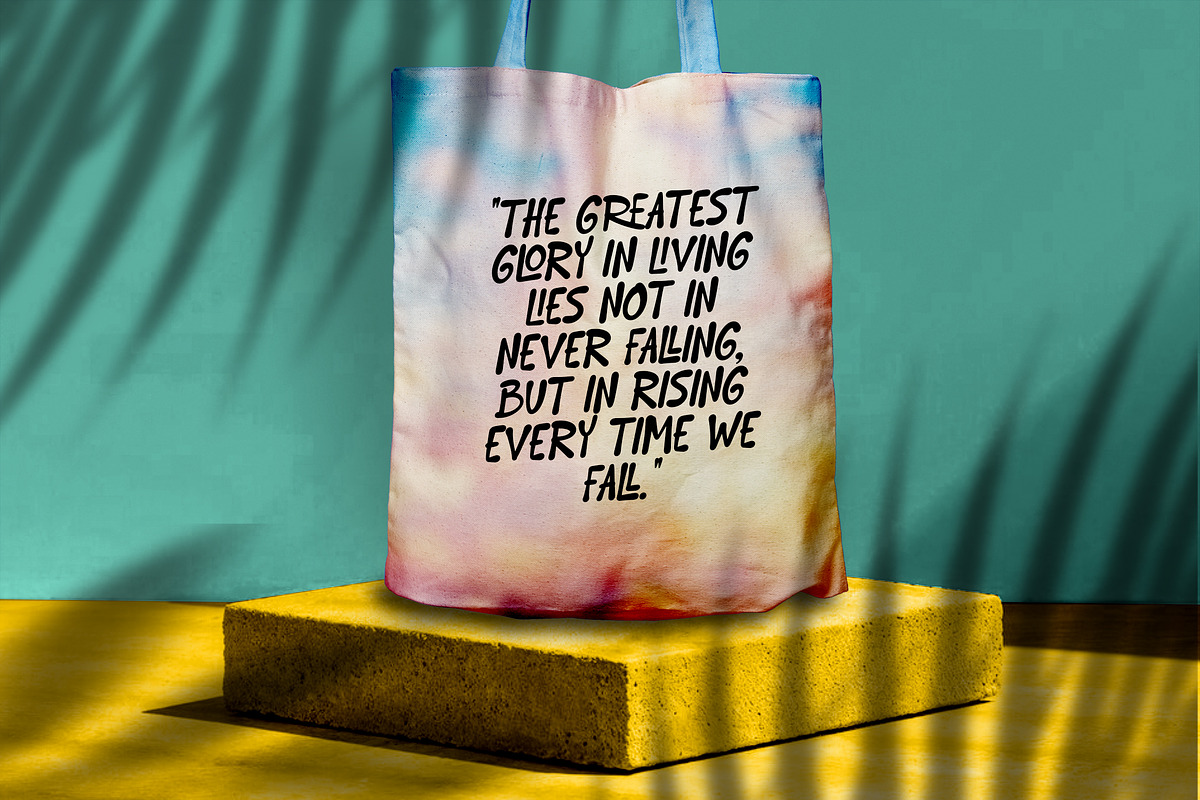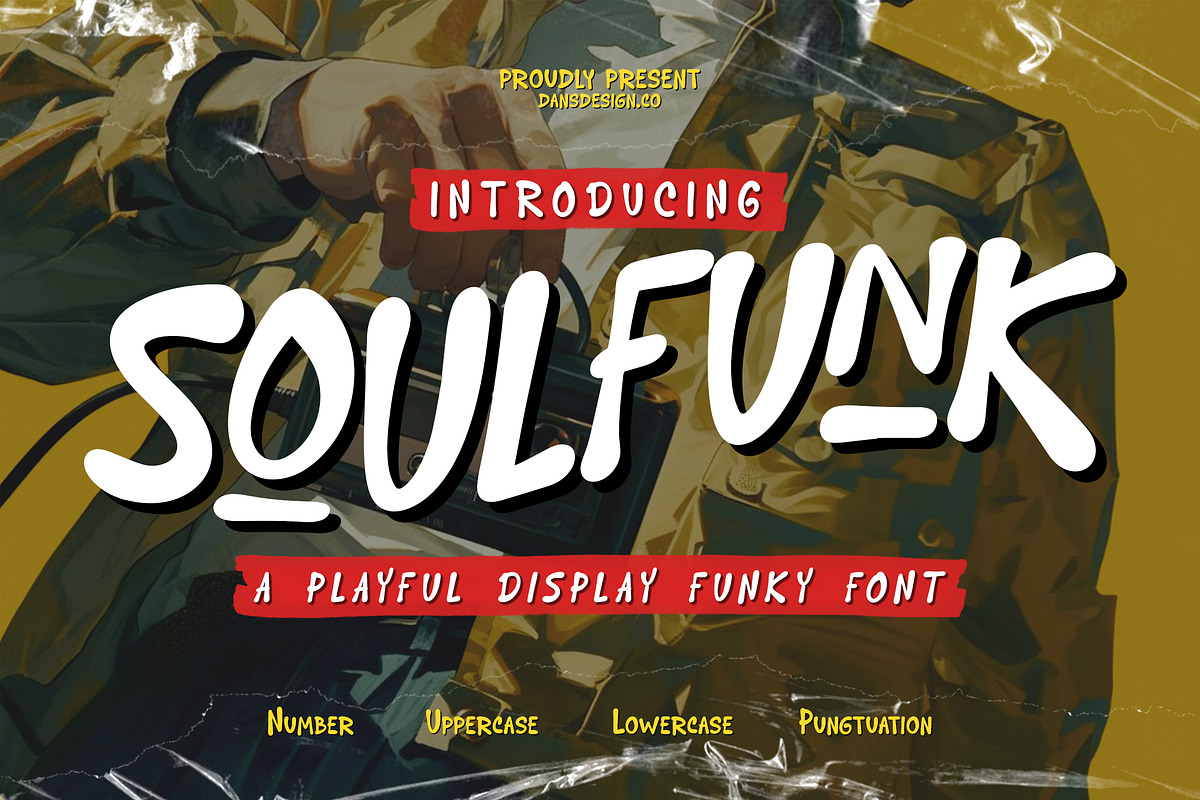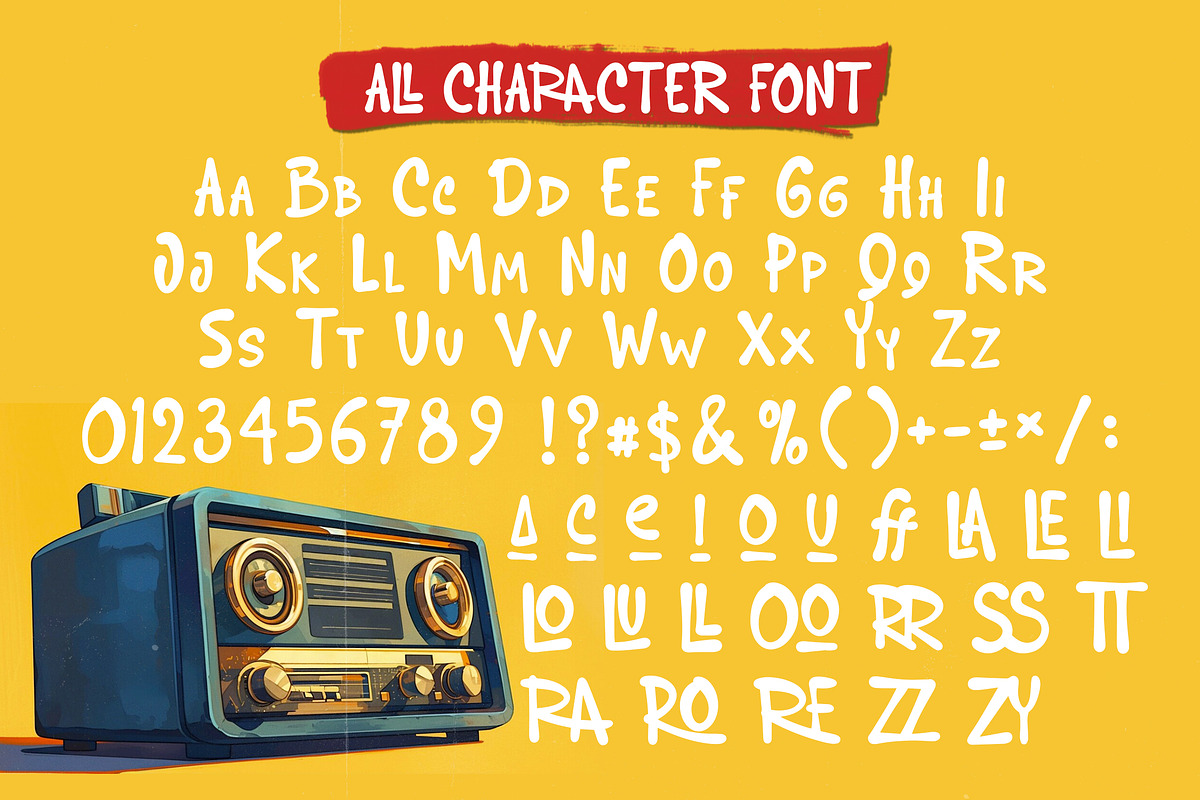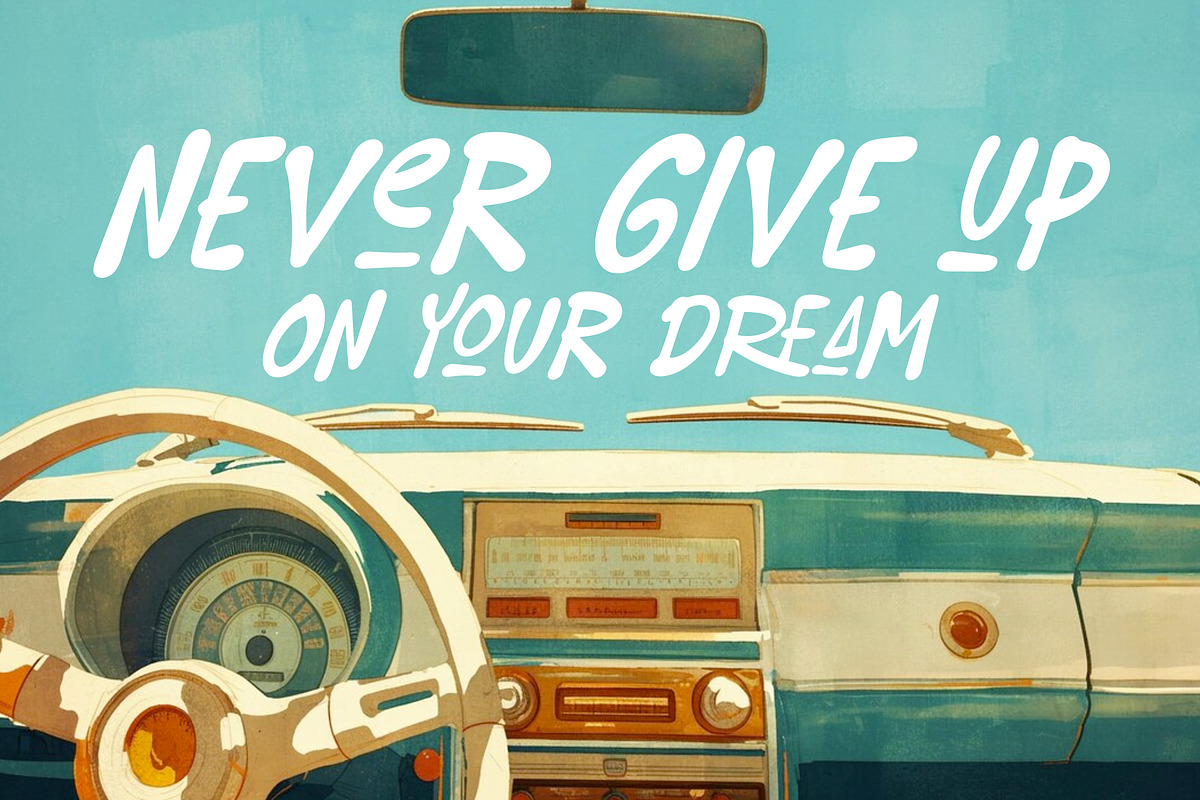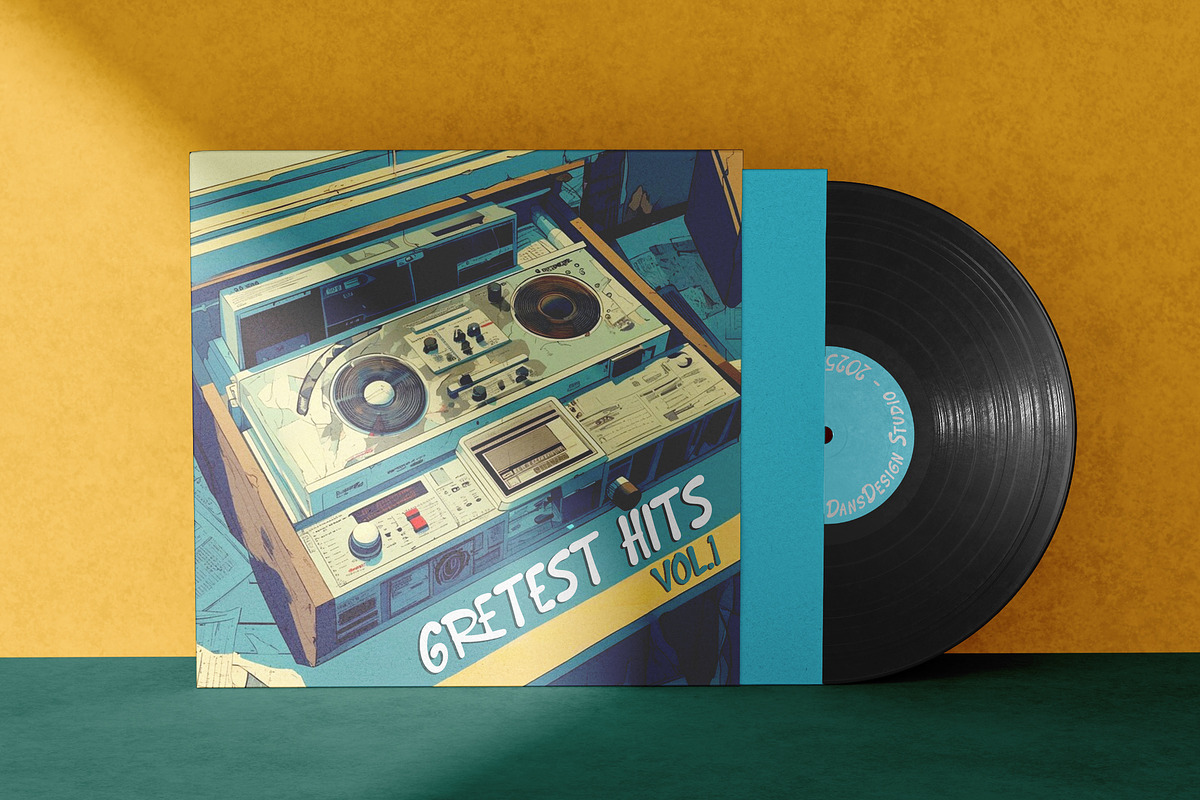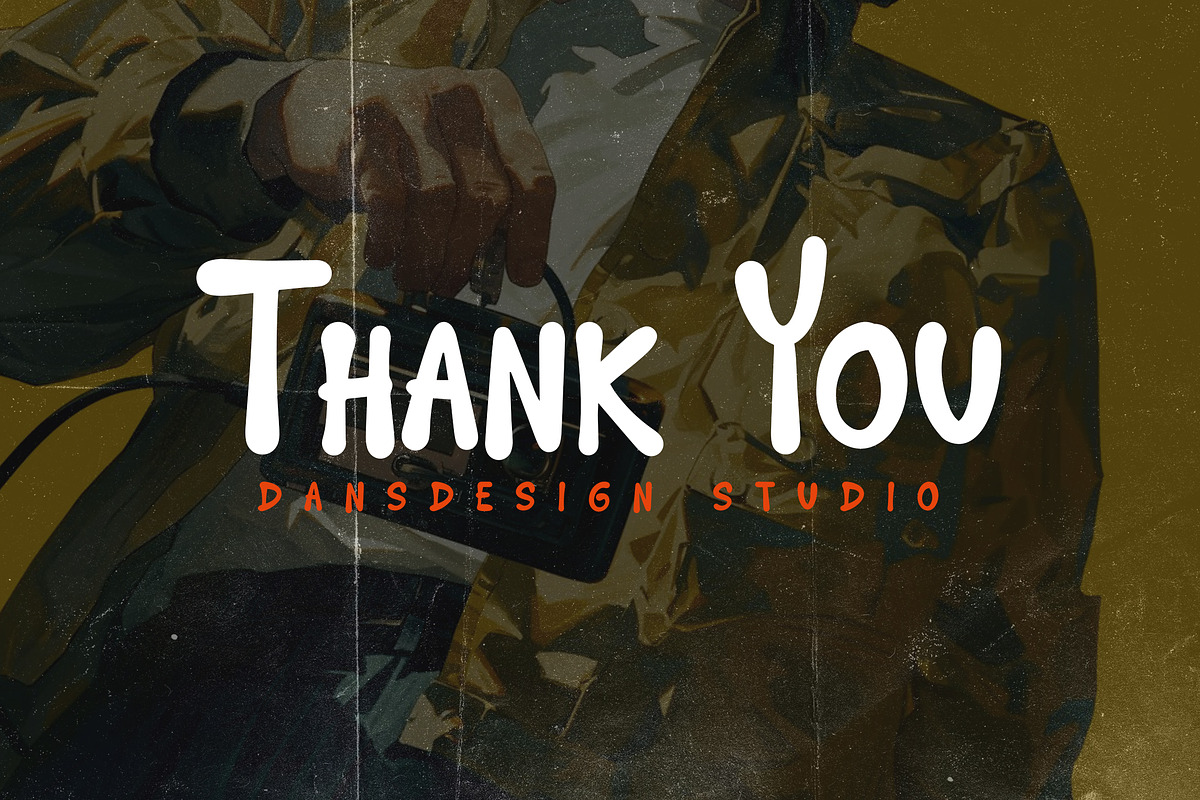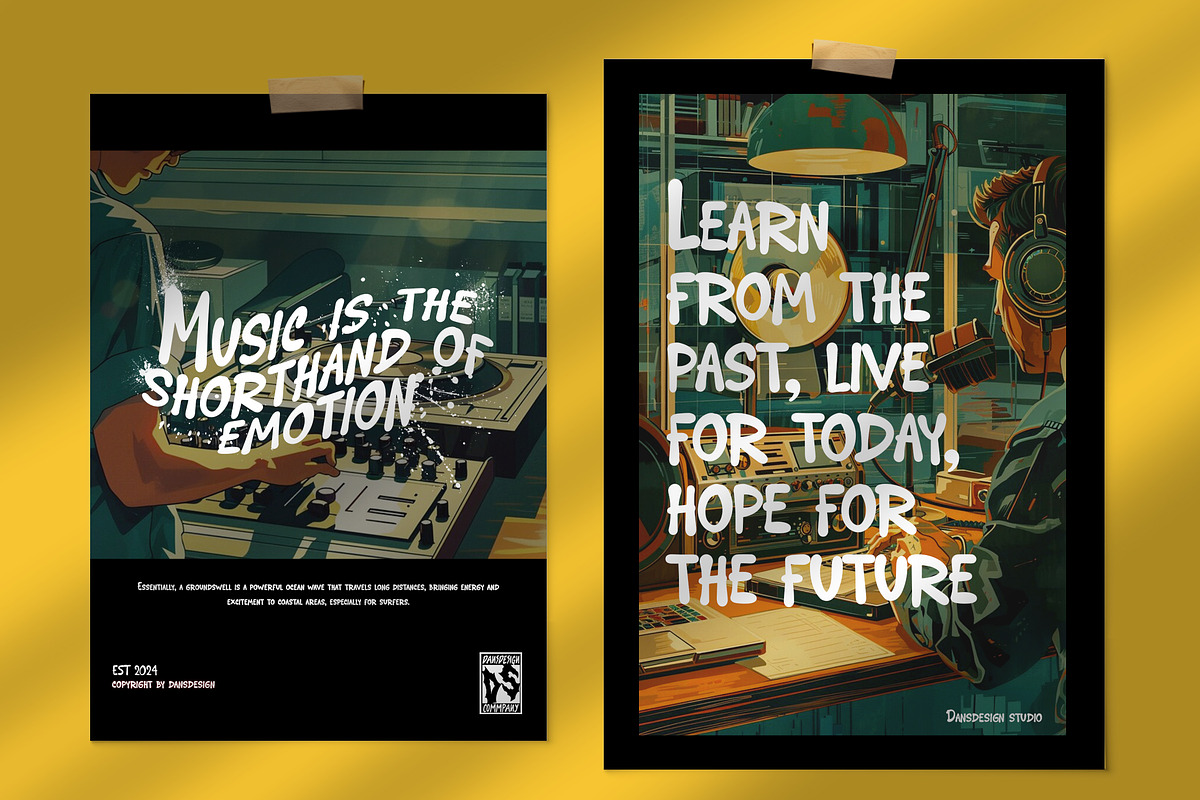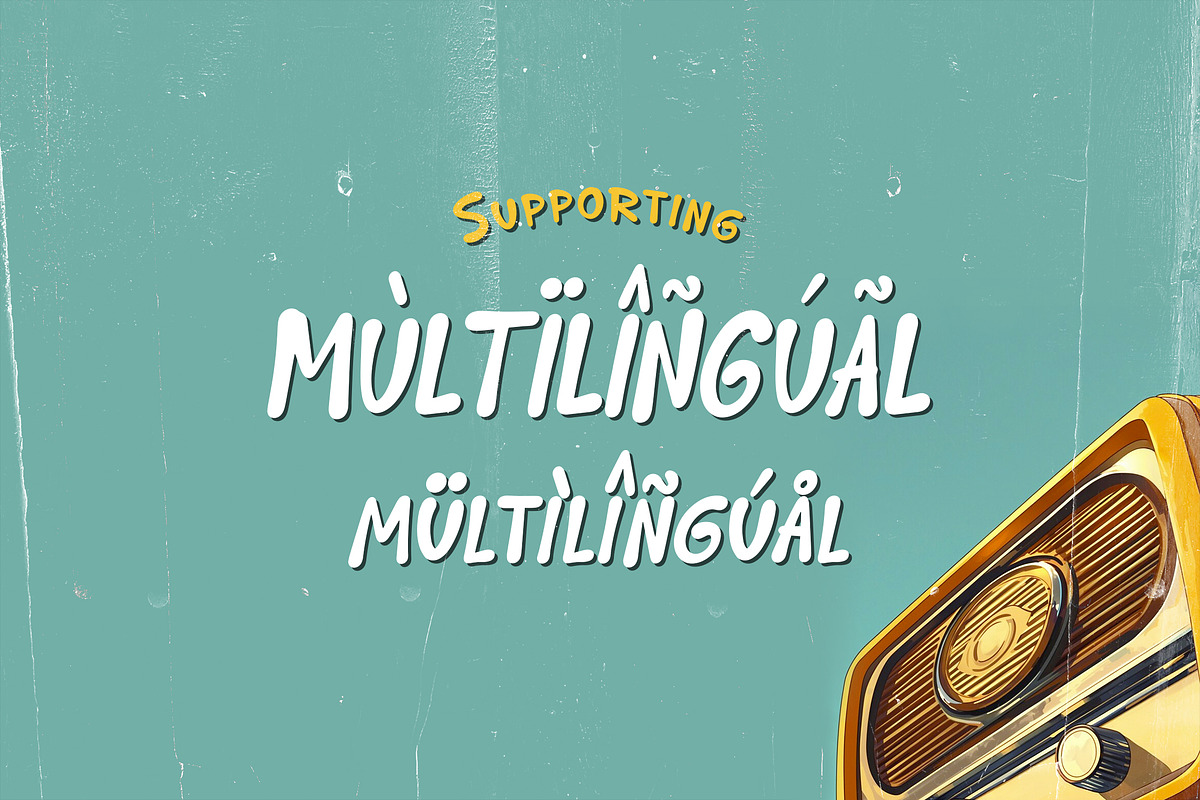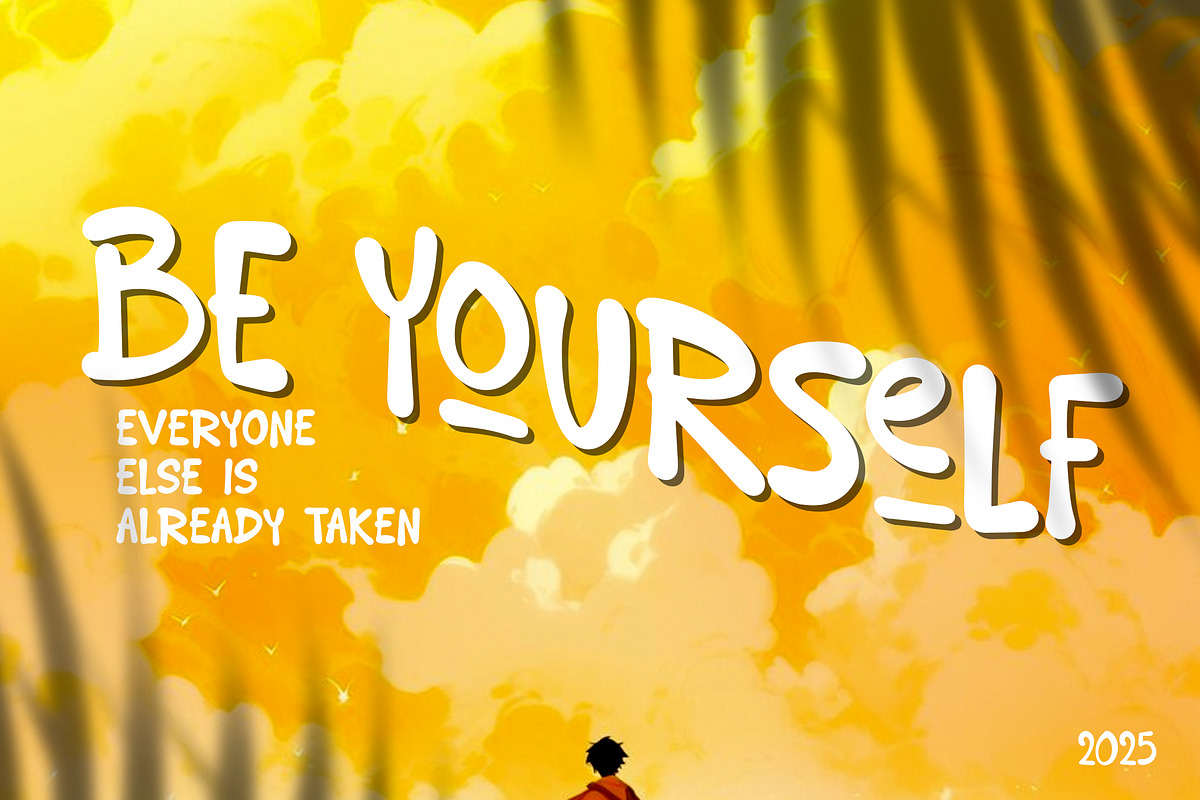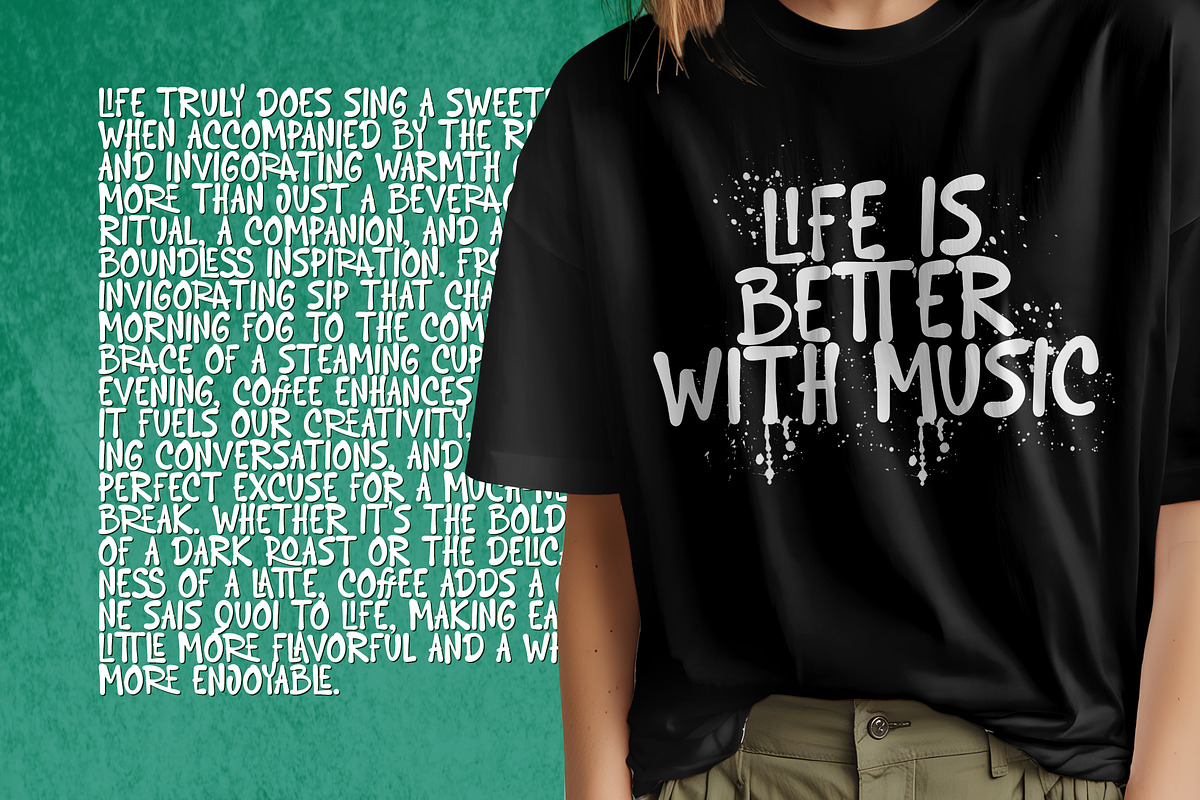
Soulfunk Funky Marker Graffiti
Soulfunk – Funky Marker Graffiti Display Font for Comic, Music & Urban Designs
Soulfunk is a playful marker display font inspired by graffiti art, comic energy, and funky street vibes. With bold strokes and cartoonish charisma, Soulfunk is perfect for loud visuals that need movement, fun, and urban personality.
Whether you're designing a music poster, street food logo, or summer festival promo, this font brings energy, edge, and freshness to every project. Ideal for bands, drinks, movies, comics, or anything that needs bold visual attitude.
- Music & band posters (funk, rap, indie, street)
- Graffiti-style marketing & urban branding
- Comic covers & cartoon-inspired visuals
- Summer event flyers & movie title designs
- Food & drink packaging with a fun twist
- Youth product marketing & bold logo design
🔥 Key Features:
- Graffiti-inspired with comic flair
- Multilingual Support + Accented Characters
Add noise, color, and rhythm to your design. Soulfunk is not just a font—it’s your loudest graphic voice.